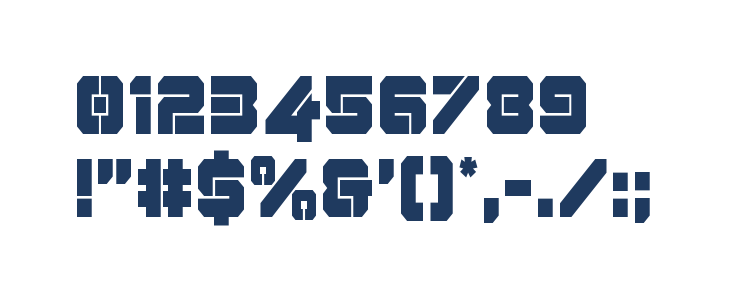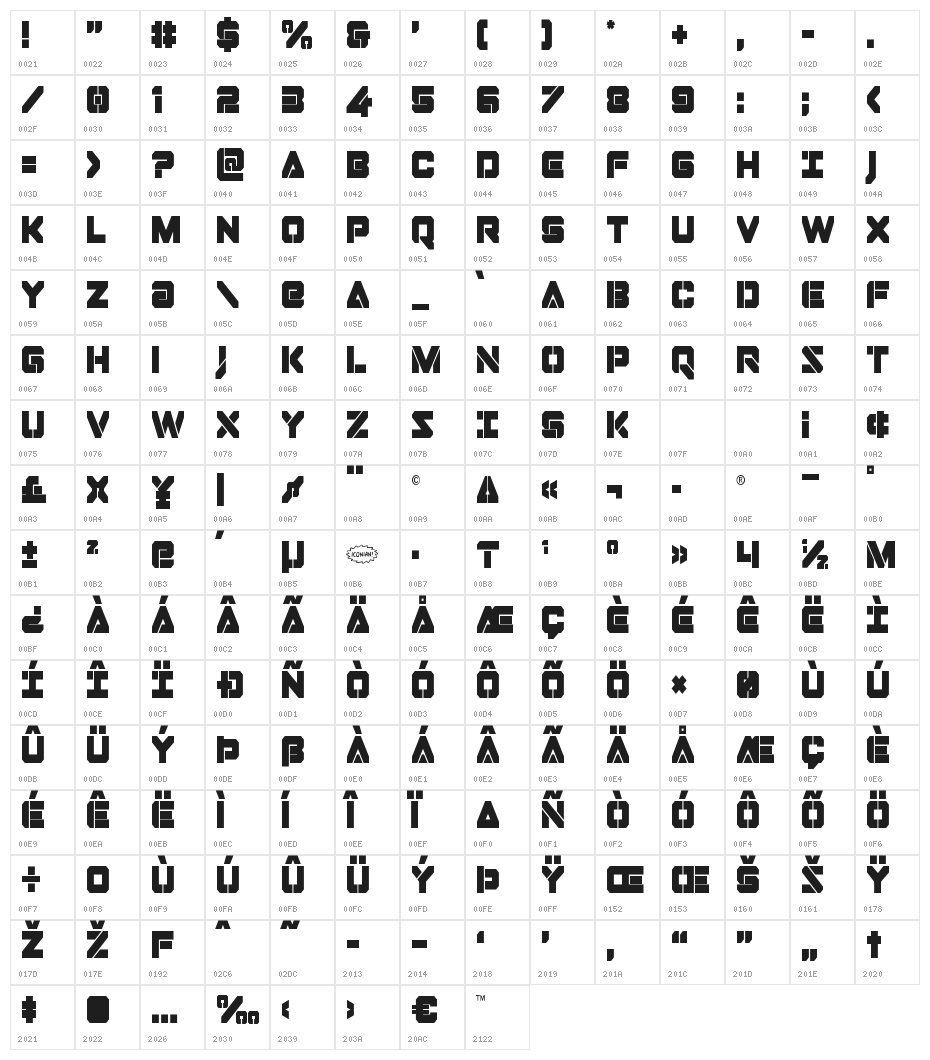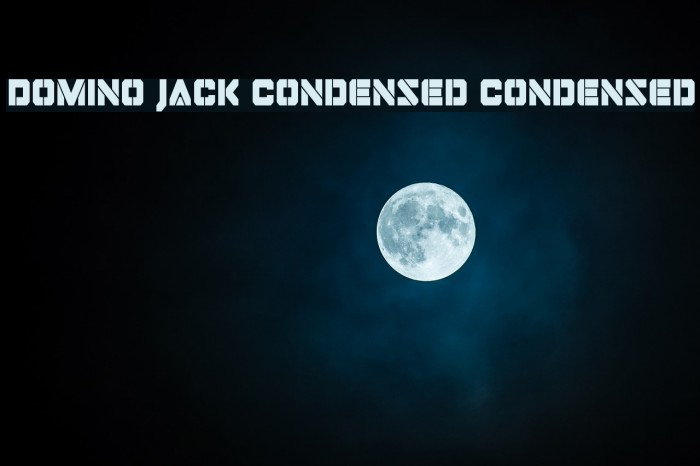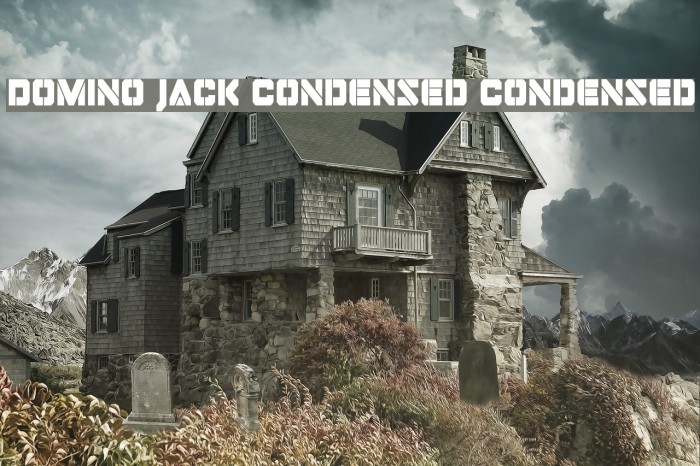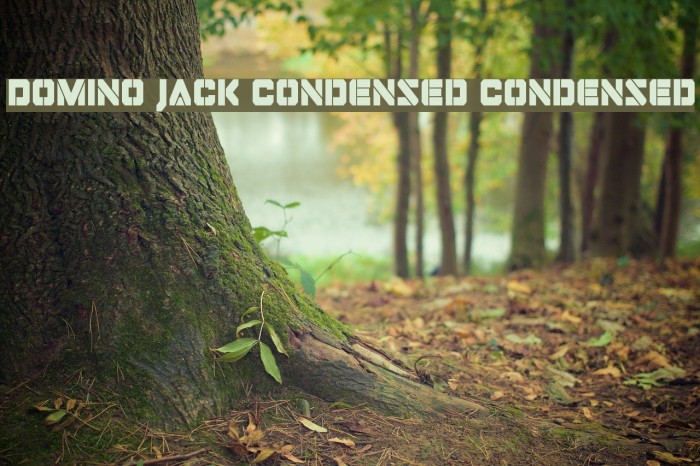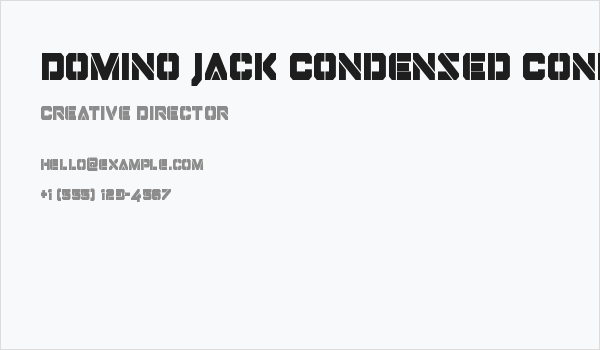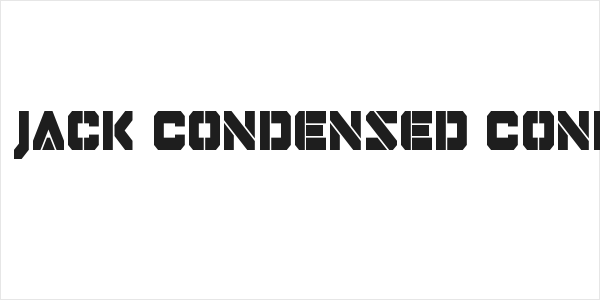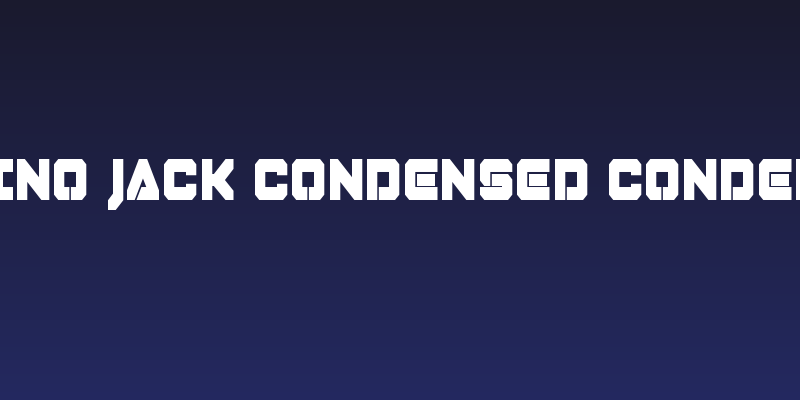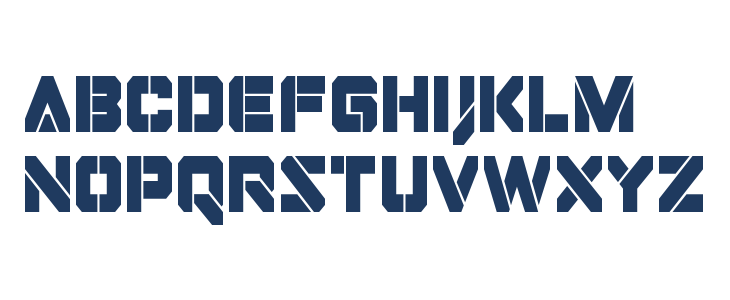
Domino Jack Condensed Font
Domino Jack Condensed Description
This font features a bold, geometric design with a distinctly modern and industrial feel. The characters are constructed with sharp angles and straight lines, giving them a blocky appearance. The condensed nature of the font allows for efficient use of space, making it suitable for headlines or titles where impact is essential. The uppercase and lowercase letters maintain a consistent style, with the uppercase being particularly striking due to its solid, imposing structure. Numbers and special characters follow the same design principles, ensuring uniformity across all elements. The font's high contrast and thick strokes contribute to its strong visual presence, making it ideal for projects that require a bold statement.
Proposed ProjectsIdeal for branding, posters, headlines, and any design requiring a strong, impactful typeface.